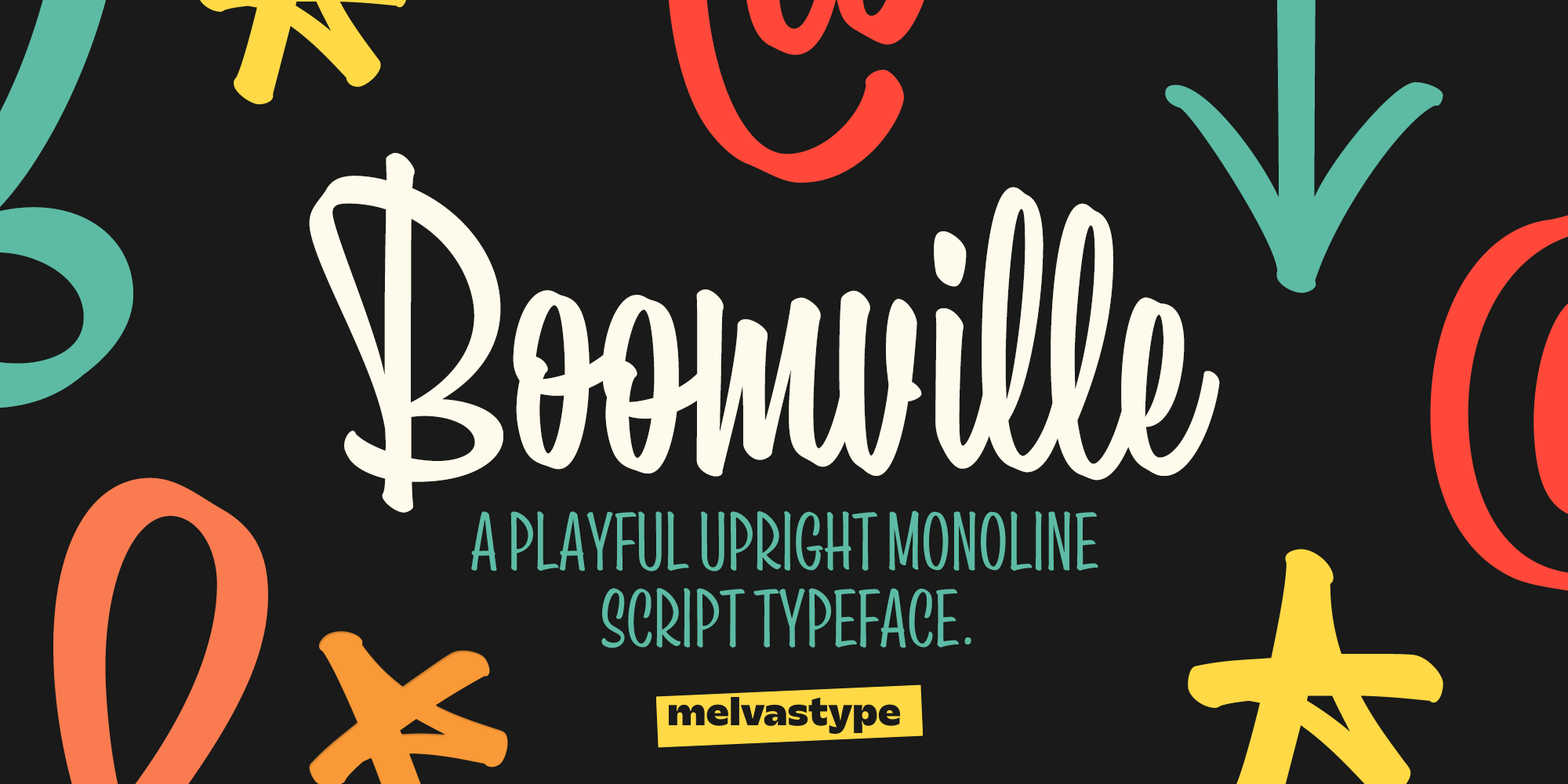
Boomville Font is perfect for explosive entertainment venues, dynamic sports branding, high-energy event promotions, action movie titles, fireworks companies, adventure theme parks, energetic music festivals, impact-driven advertising campaigns, and any project requiring typography with explosive energy and dynamic boom aesthetics.
What makes Boomville Font exciting is its explosive dynamism that captures the thrilling impact and powerful energy of sudden bursts and dramatic moments with letterforms that seem to erupt with the same force and excitement found in spectacular fireworks displays, thunderous applause, and the electrifying atmosphere of peak entertainment experiences. This exhilarating typeface embodies the concentrated power of explosive moments with bold construction that mirrors the instant impact and reverberating energy that creates unforgettable memories and lasting impressions. The font's explosive character and dynamic sophistication make it perfect for brands celebrating high-impact experiences, dramatic entertainment, and the transformative power of moments that literally make people say "wow" with genuine amazement.
The Boomville Font family includes regular and bold weights, featuring complete uppercase and lowercase alphabets, numerals, punctuation marks, and explosive design elements. The font maintains consistent dynamic energy throughout all weights while ensuring excellent readability for both powerful headlines and impactful text applications in entertainment and high-energy contexts.
Whether you're designing for entertainment companies, creating explosive event materials, or developing high-impact branding with dynamic boom aesthetics, Boomville Font Free Download delivers unmatched explosive authority and dynamic sophistication to your projects. This exceptional typeface transforms ordinary text into powerful expressions of explosive energy that capture the thrilling excitement and dramatic impact of peak entertainment moments. The font's explosive character makes it ideal for event companies, entertainment venues, and high-energy brands. Download this remarkable font today and bring the explosive power of dynamic entertainment to your design projects with authentic high-impact sophistication and boomville-inspired excitement.